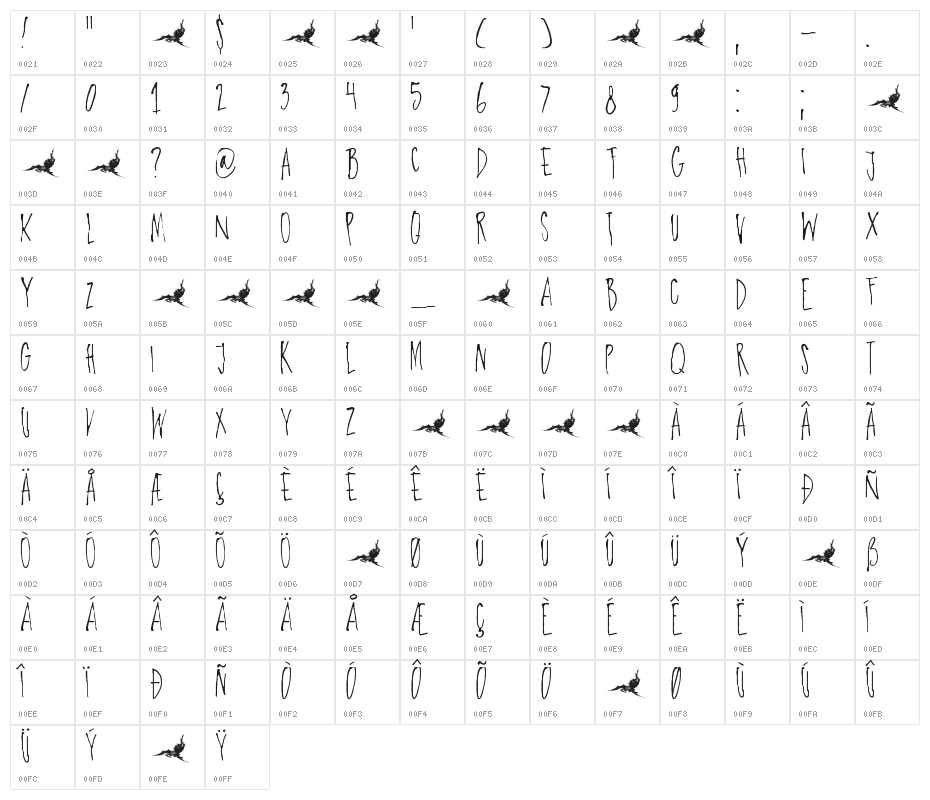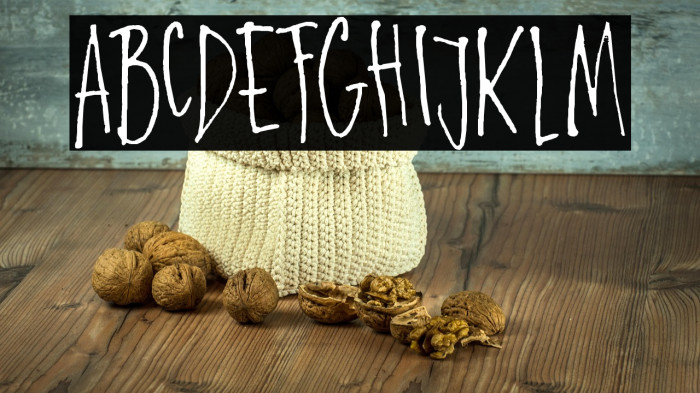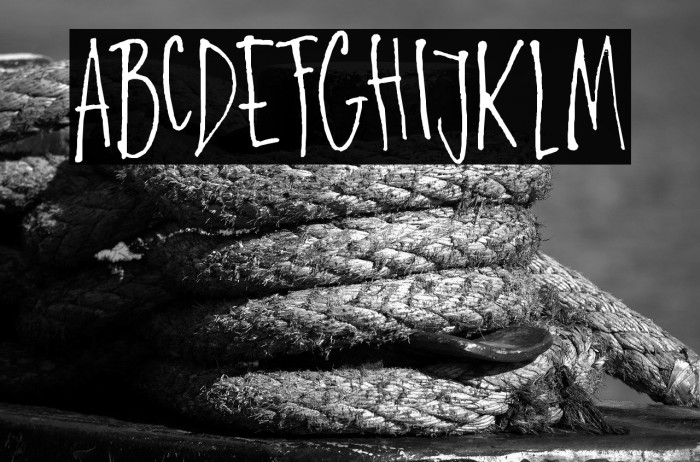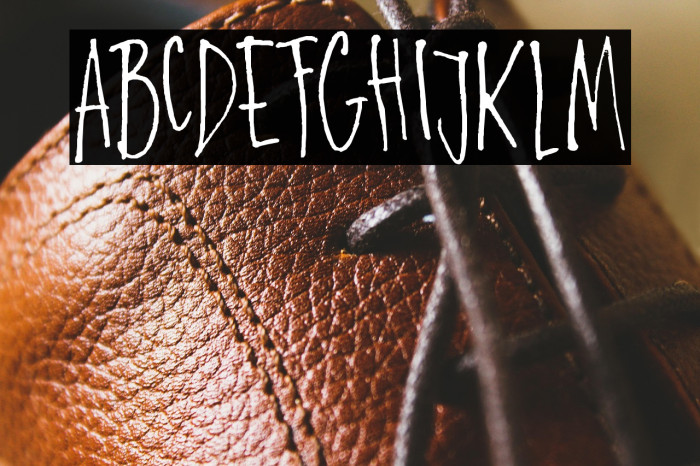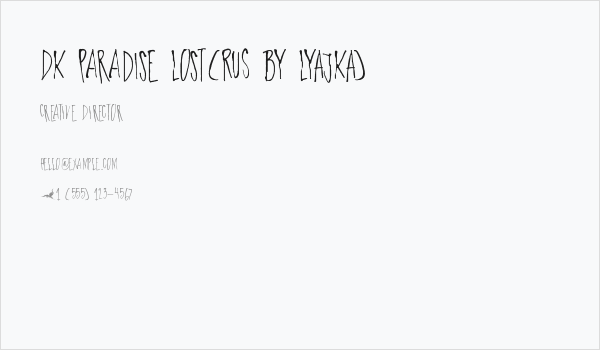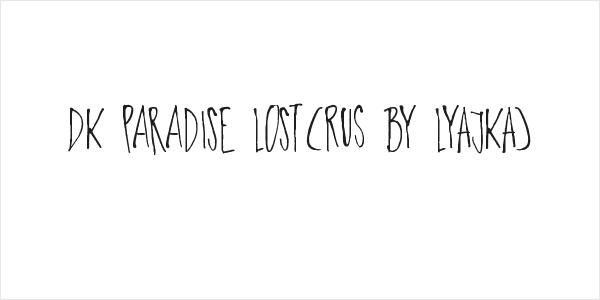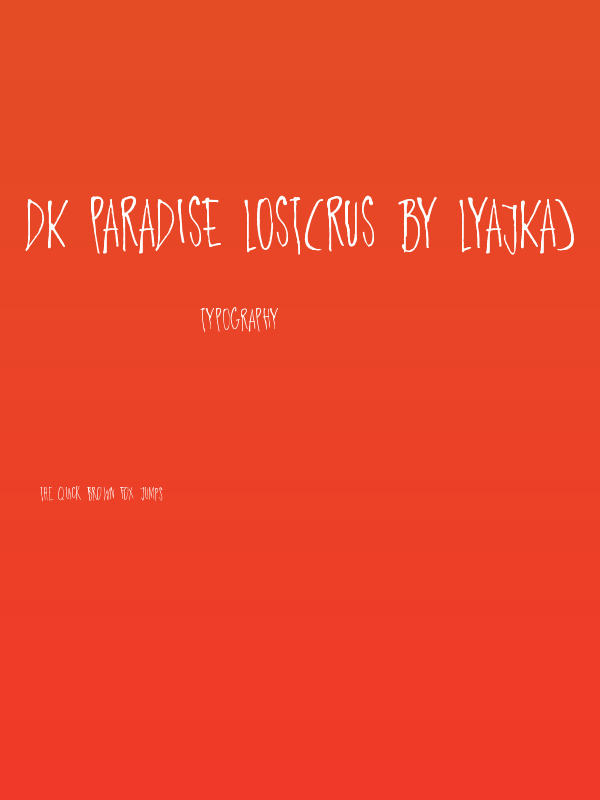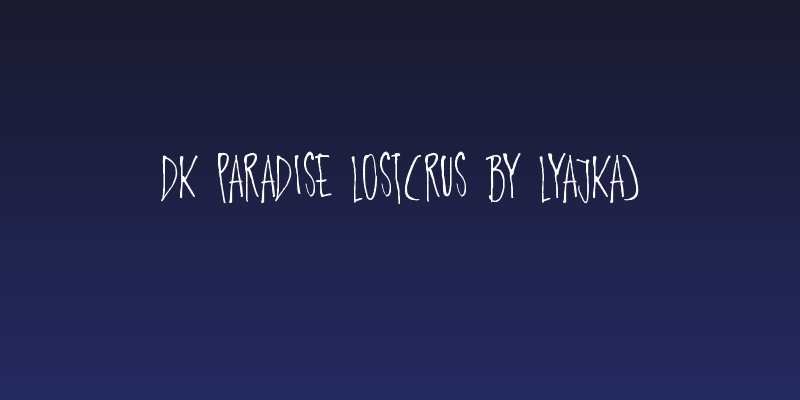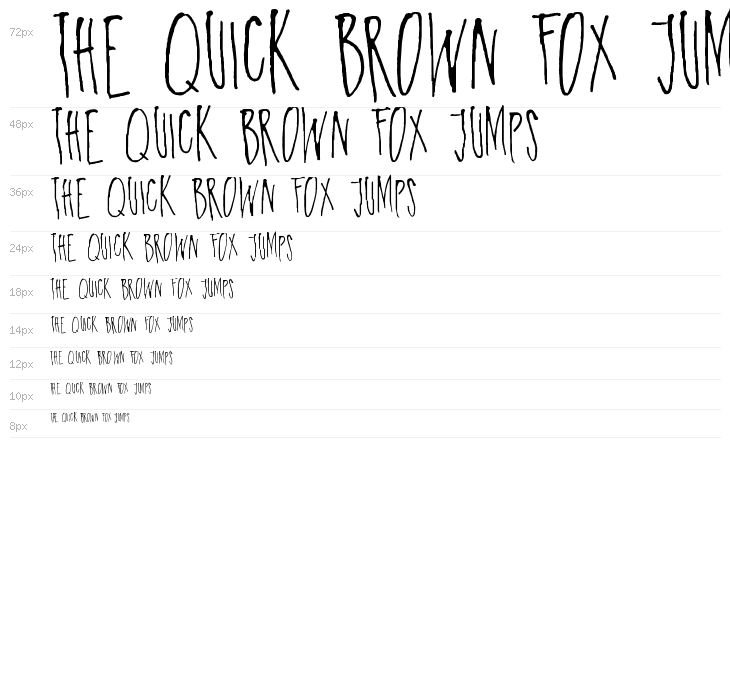
DK Paradise Lost(RUS BY LYAJKA) Font
DK Paradise Lost(RUS BY LYAJKA) Description
This font features a hand-drawn, organic style with a slightly irregular and playful appearance. The letters are tall and slender, with varying stroke widths that give it a dynamic and lively feel. The uppercase and lowercase characters maintain a consistent style, while the numbers and special characters add a whimsical touch. The overall look is reminiscent of artistic handwriting, making it suitable for creative and expressive projects.
| Use Case | Logos, Posters, Invitations |
| Proposed Projects | Ideal for artistic projects, invitations, posters, and branding that require a personal and creative touch. |